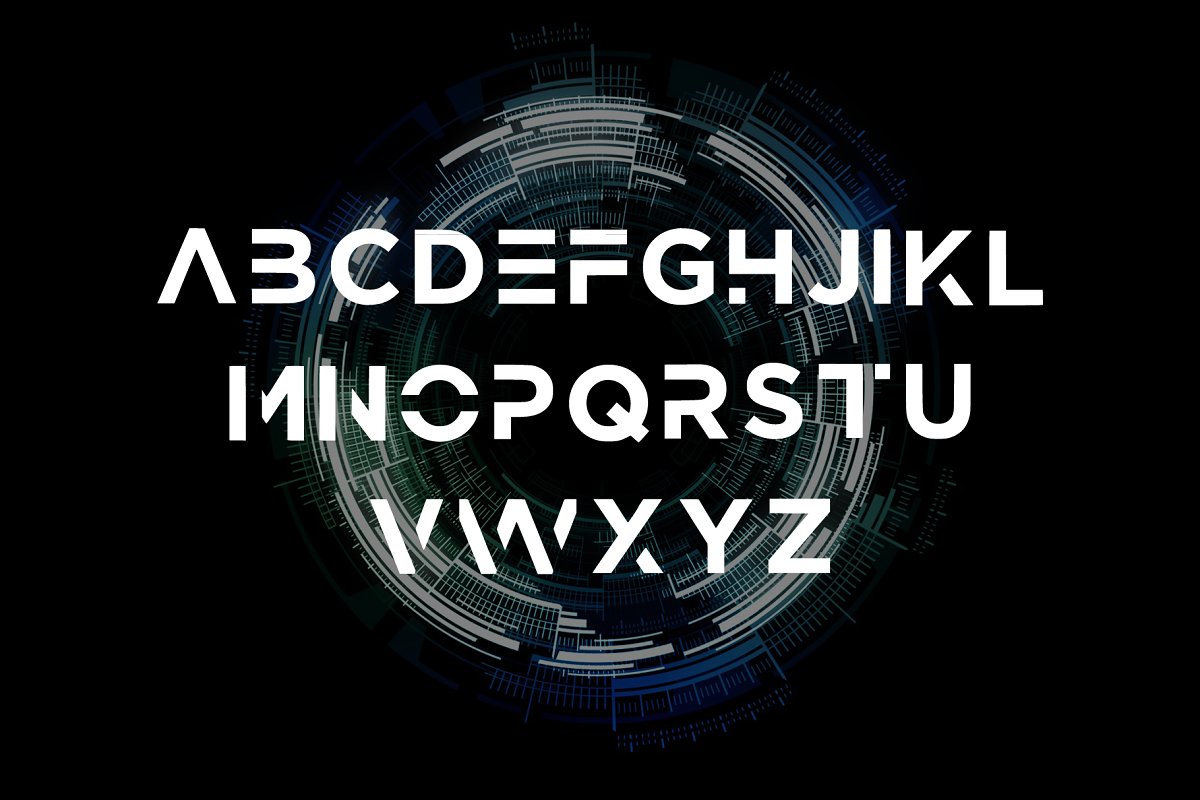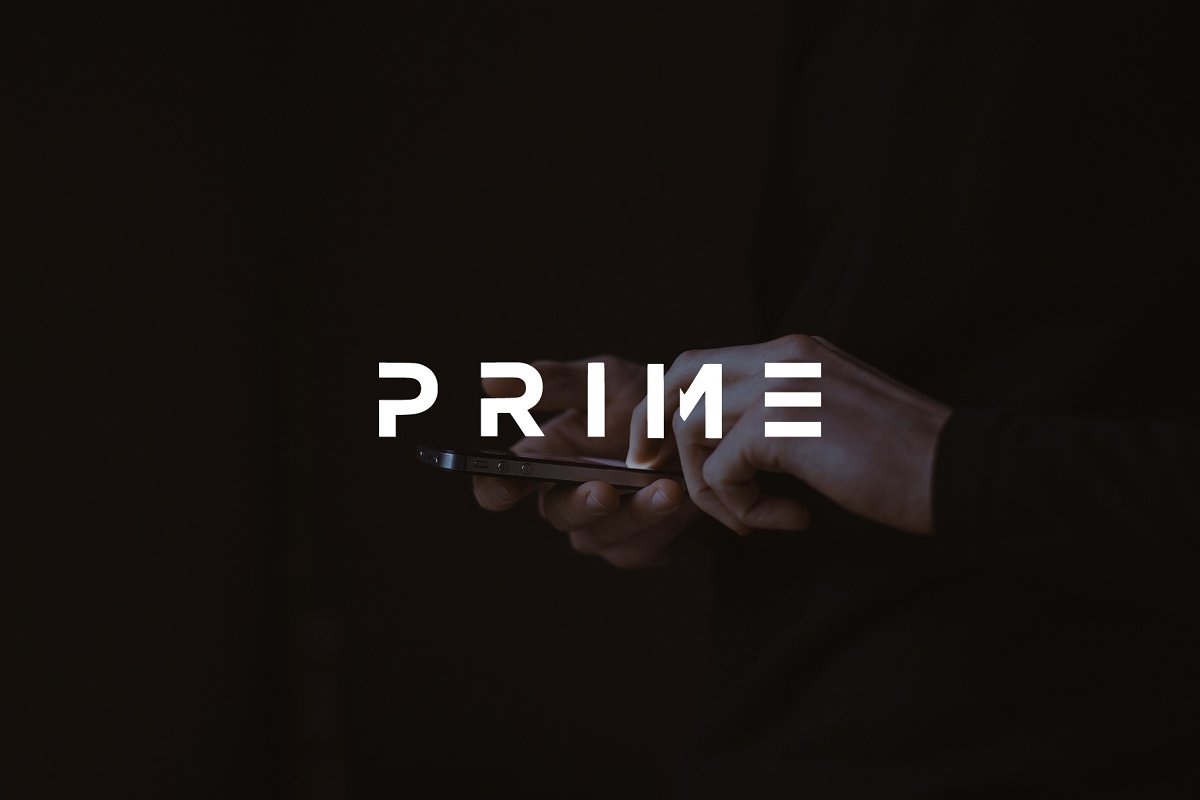
Prime Font
Prime Font is the main typeface in the Amazon devices. This font is similar to the primetime font. This font is present inside the Google fonts miles gift right here free of charge. It changed into commissioned using adobe fonts for its net font library, this furthermore strategies that the only’s fashion designer fonts are available freed from charge.